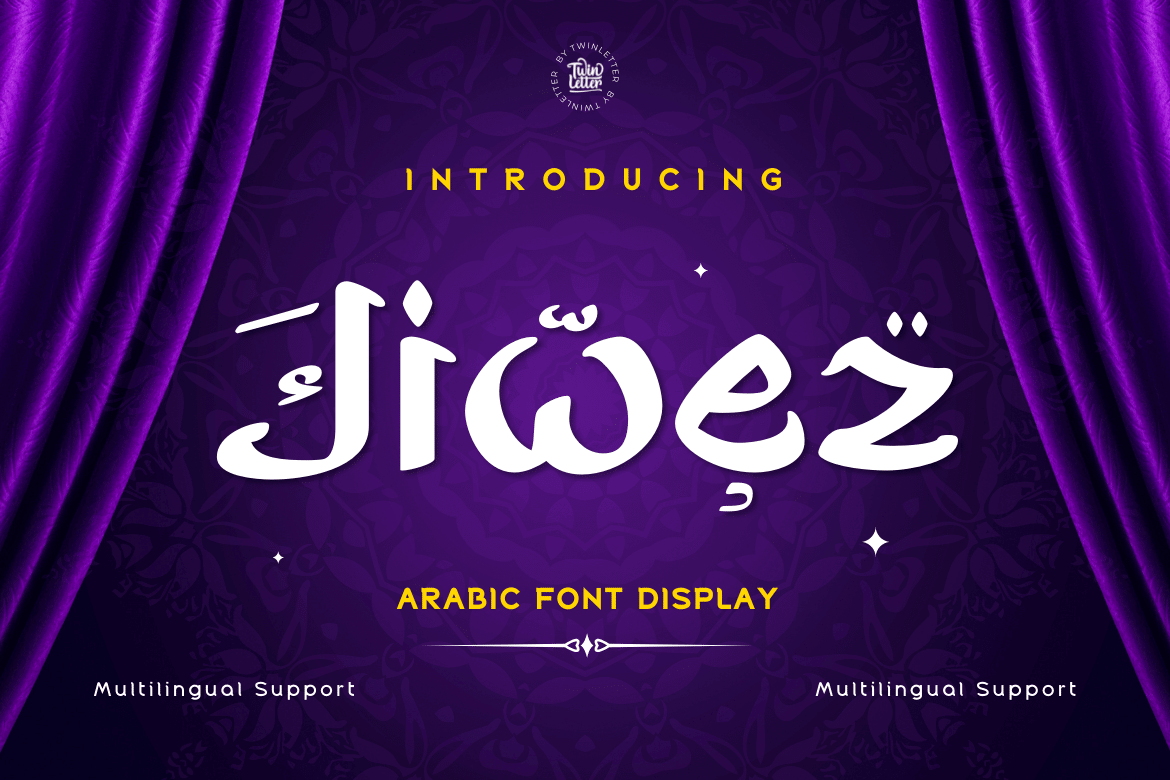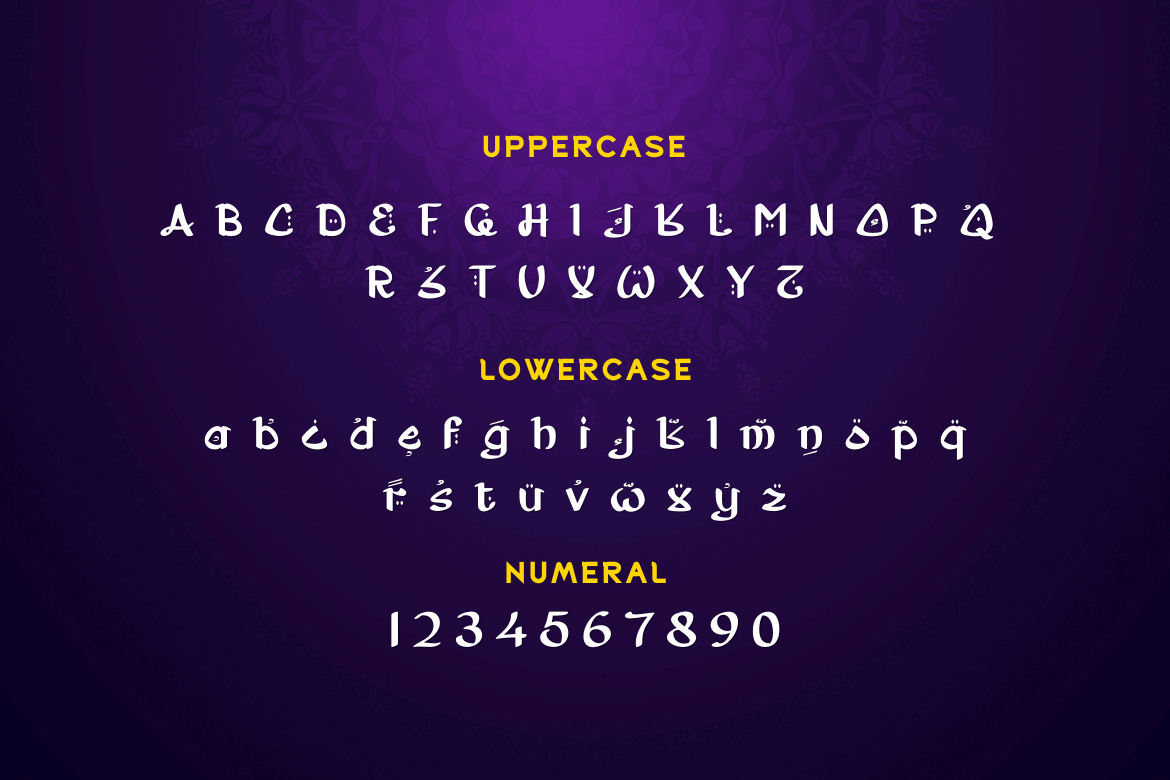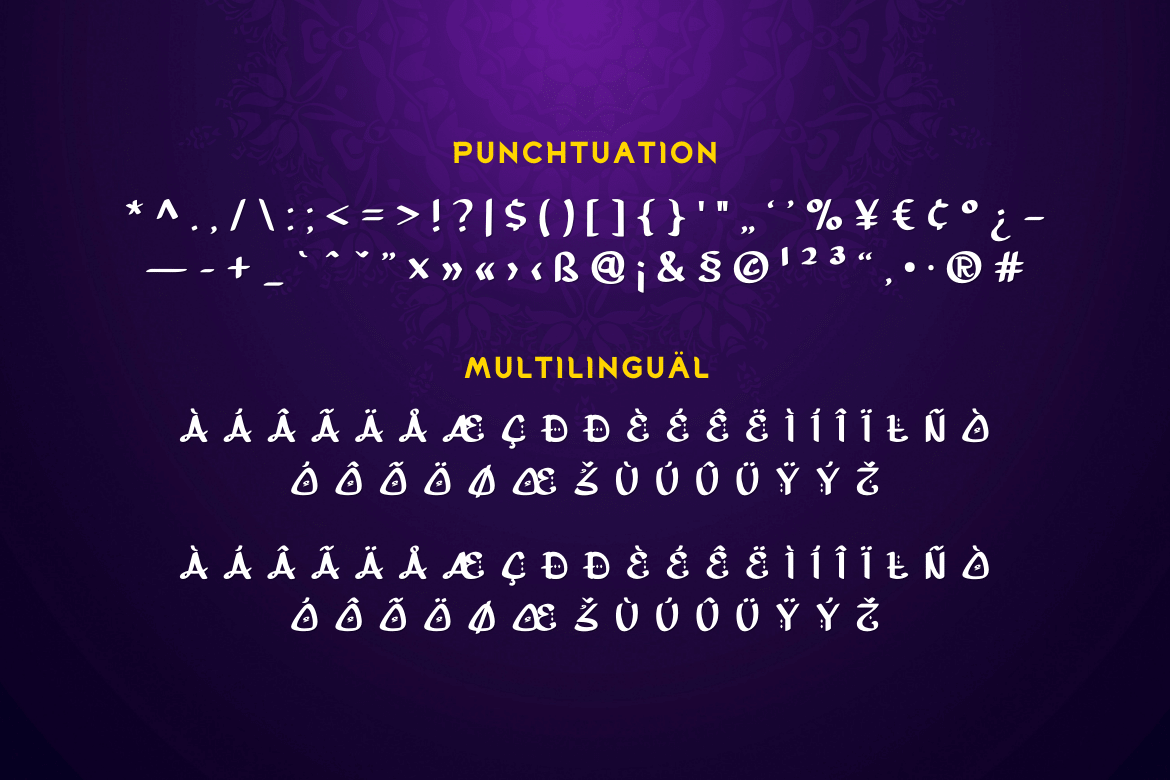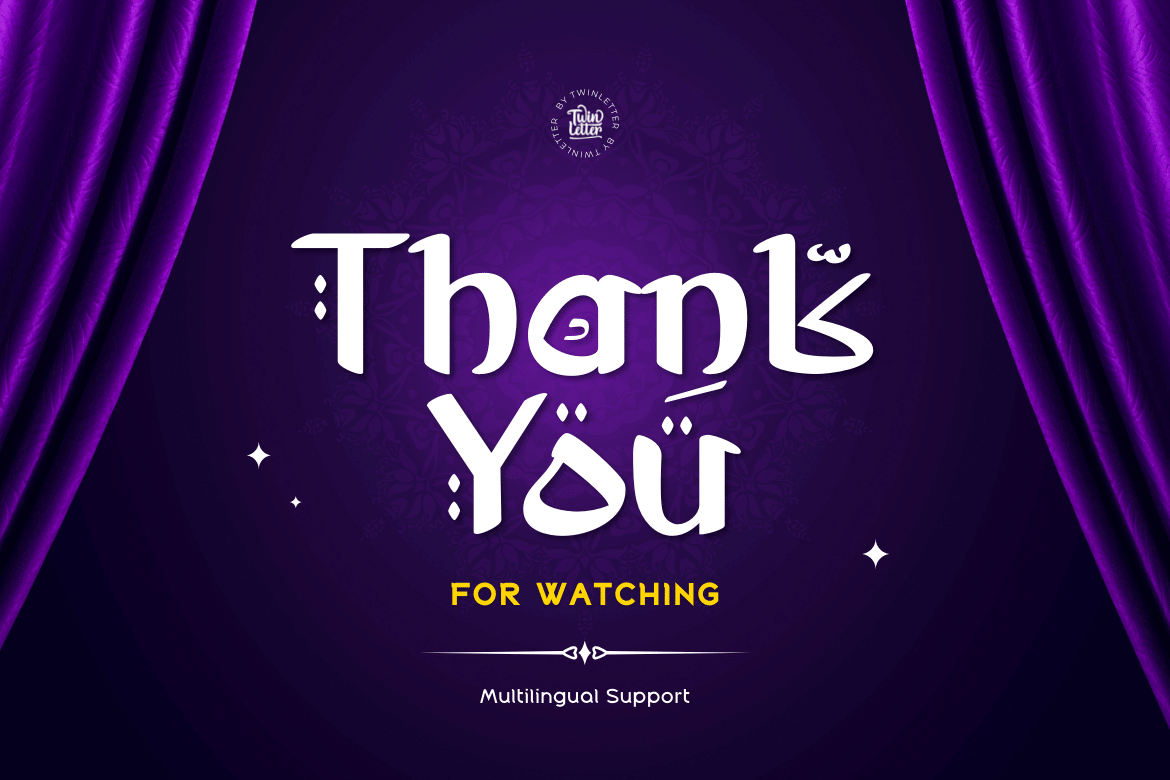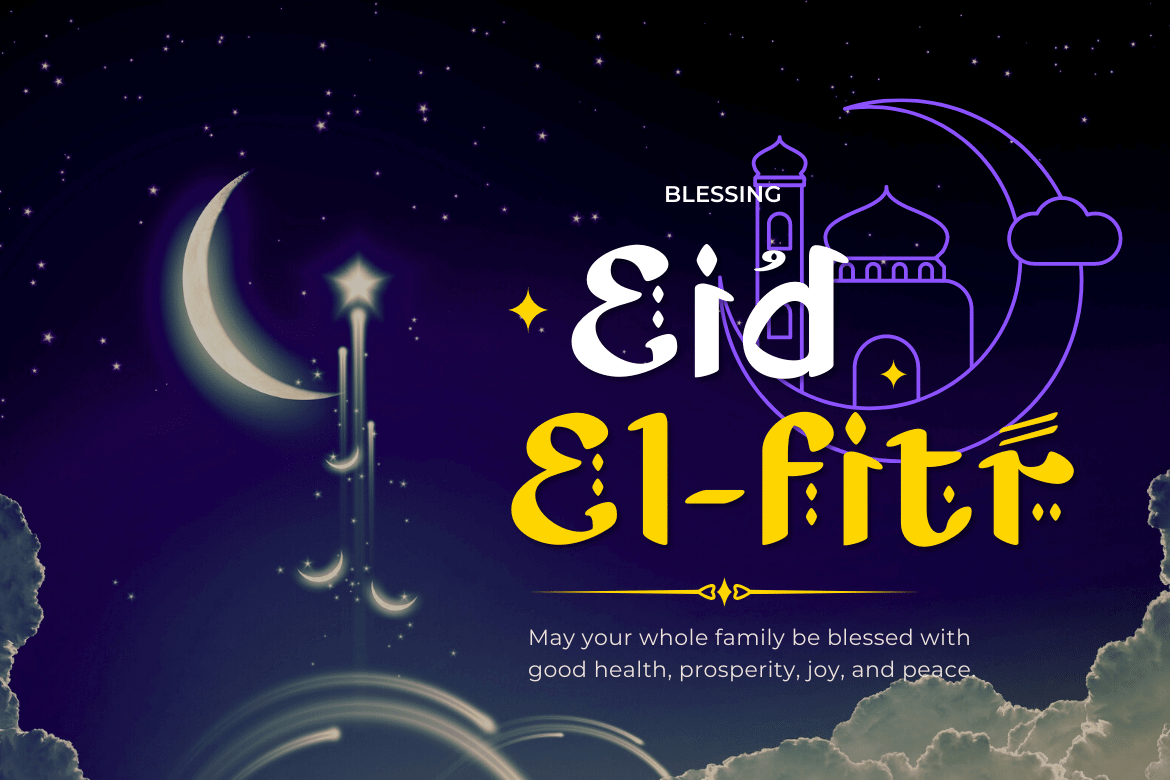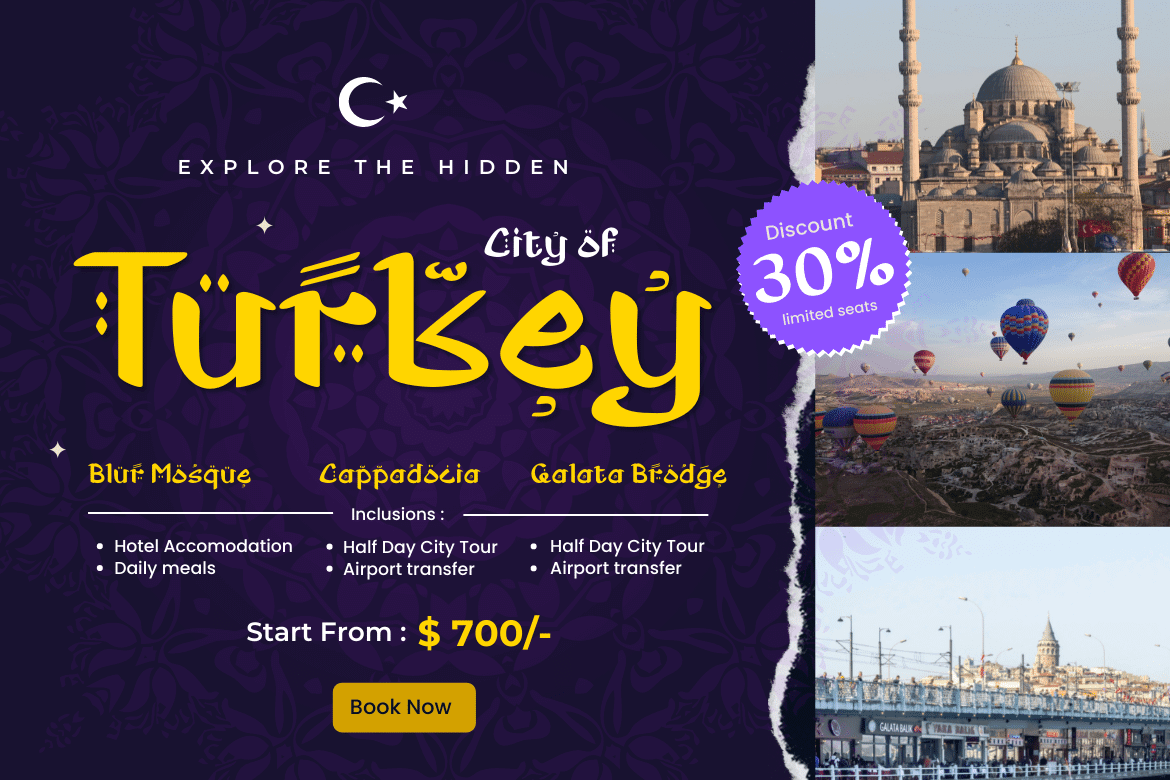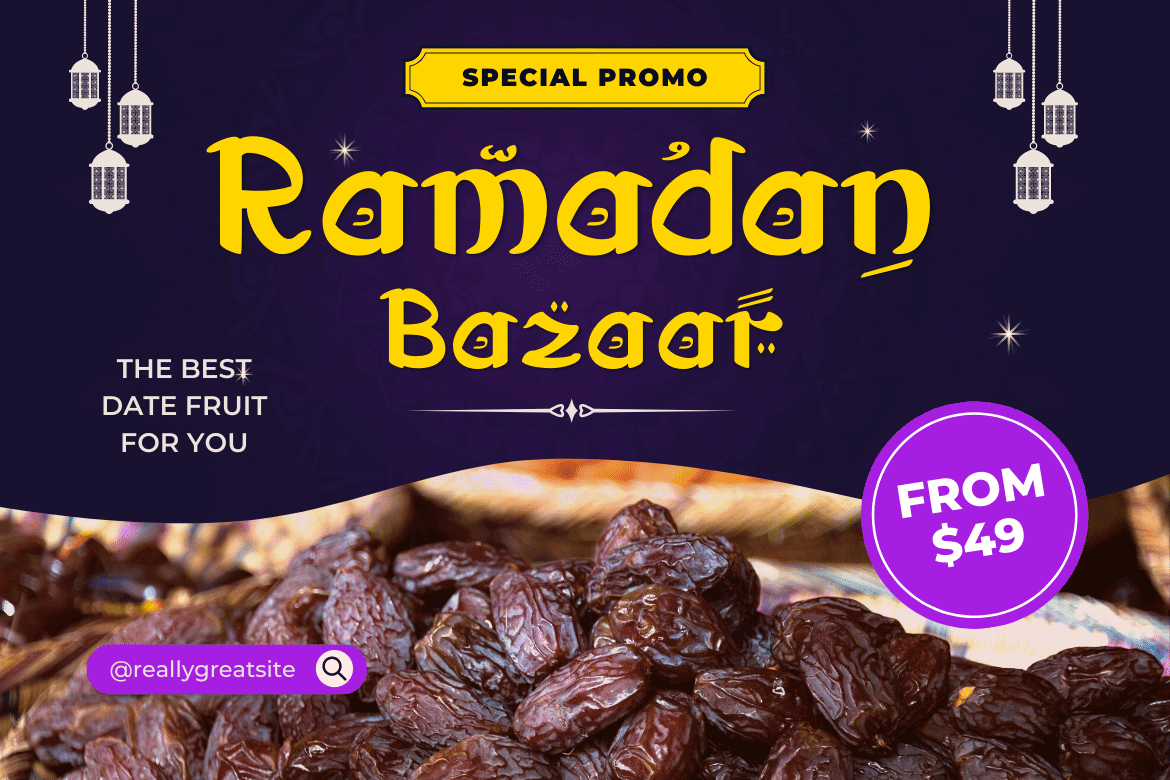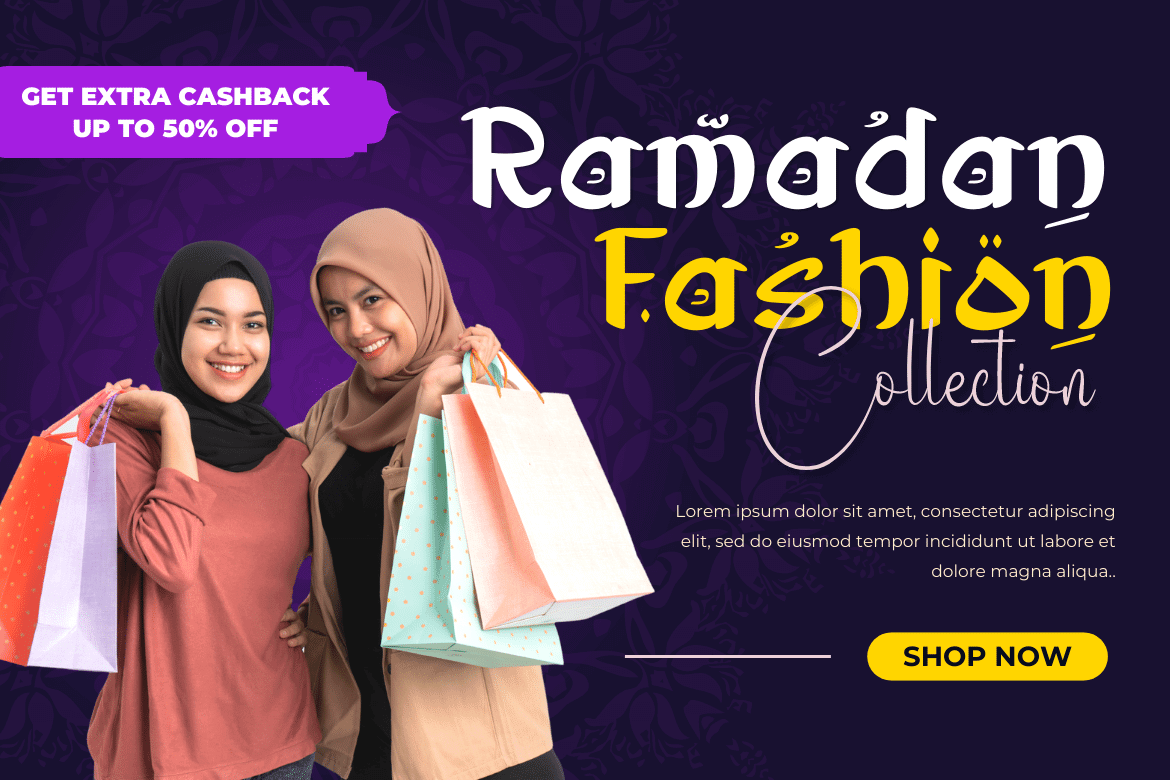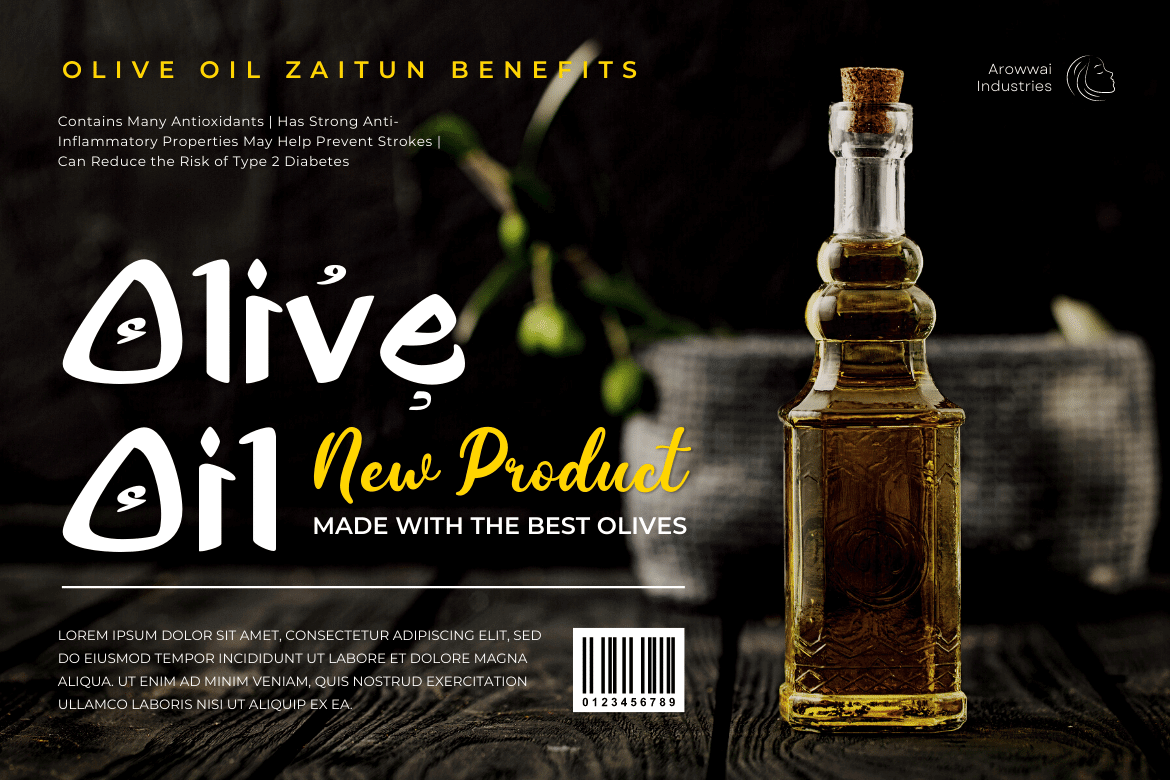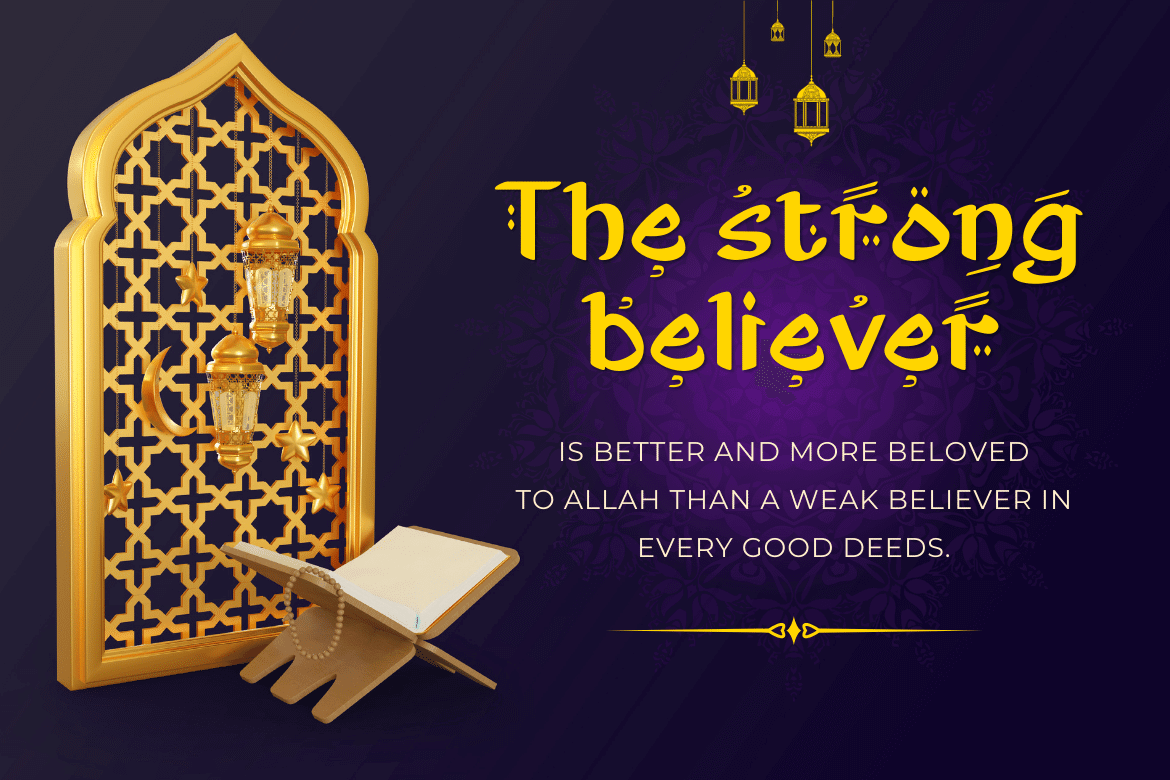
Jiwez
Jiwez Arabic style font is a premium Arabic style font that is a great way to bring a new level of luxury to your designs. The classic, yet modern style of this font is perfect for creating elegant titles and cover pages for your projects. With its classy, yet simple structure and easy-to-read fonts, you can use this font to create the perfect typeface for your projects.